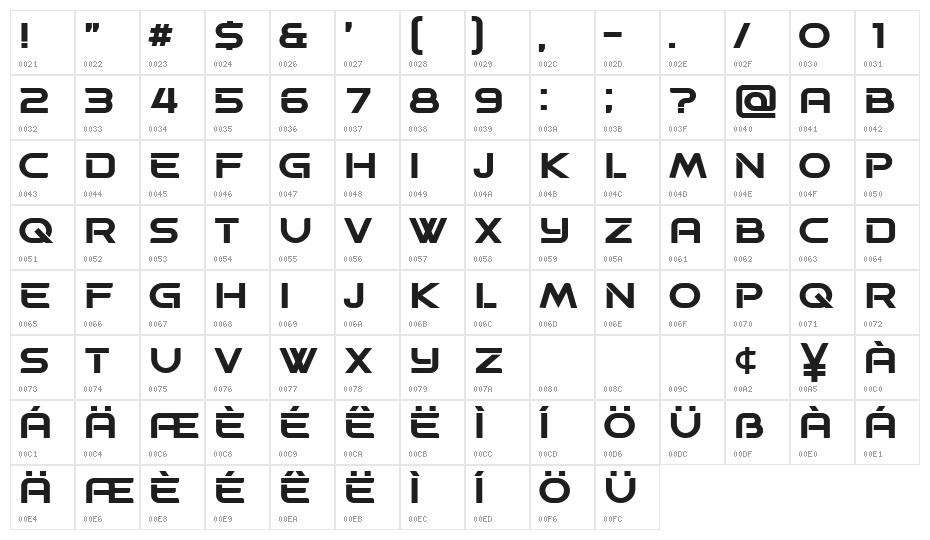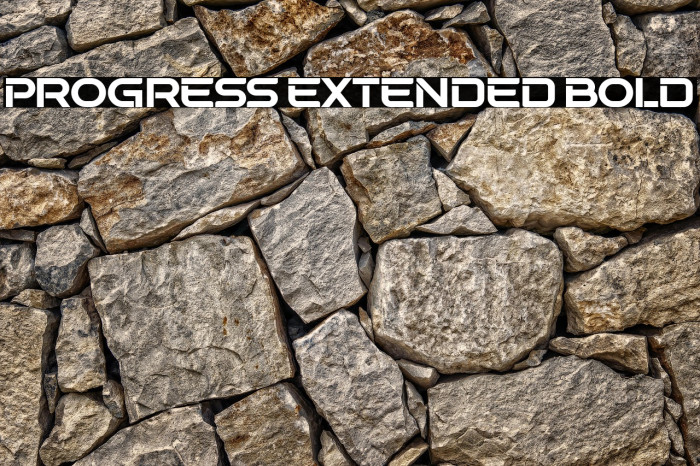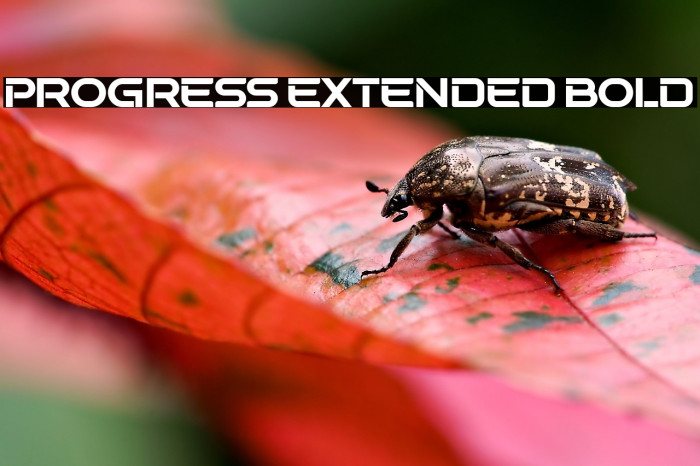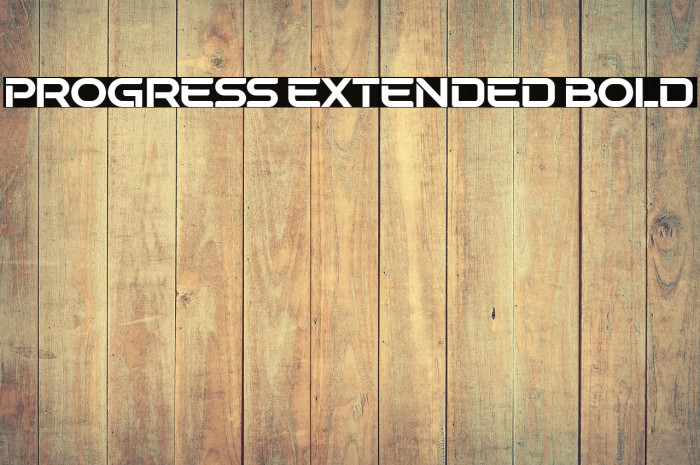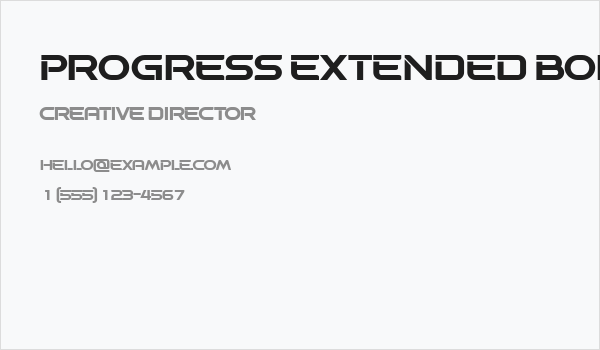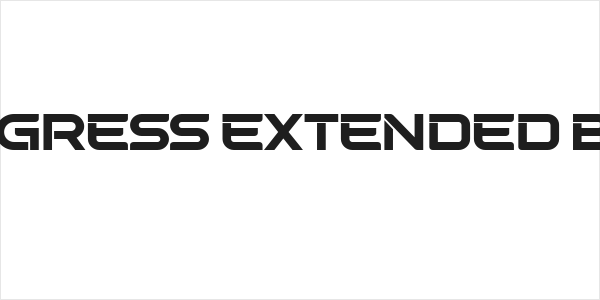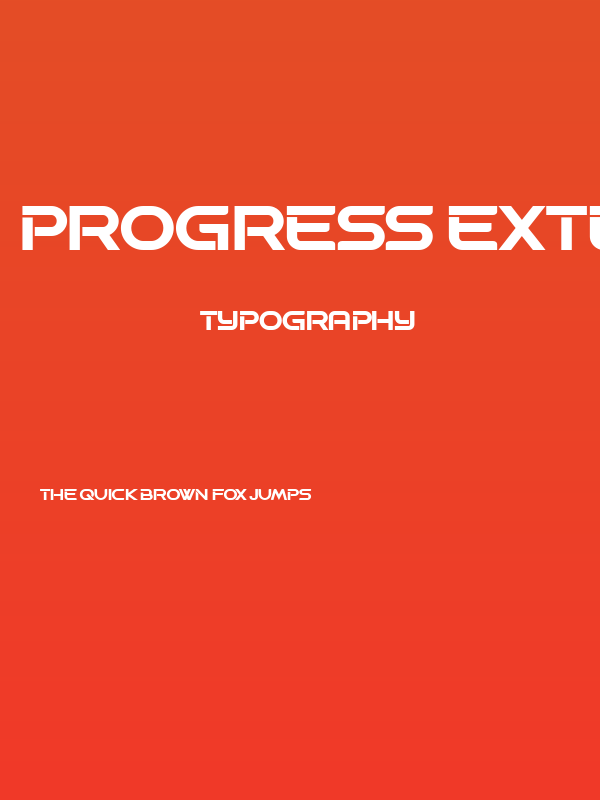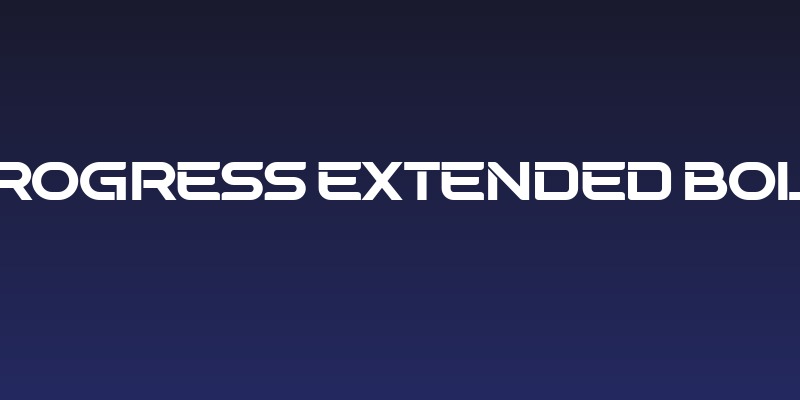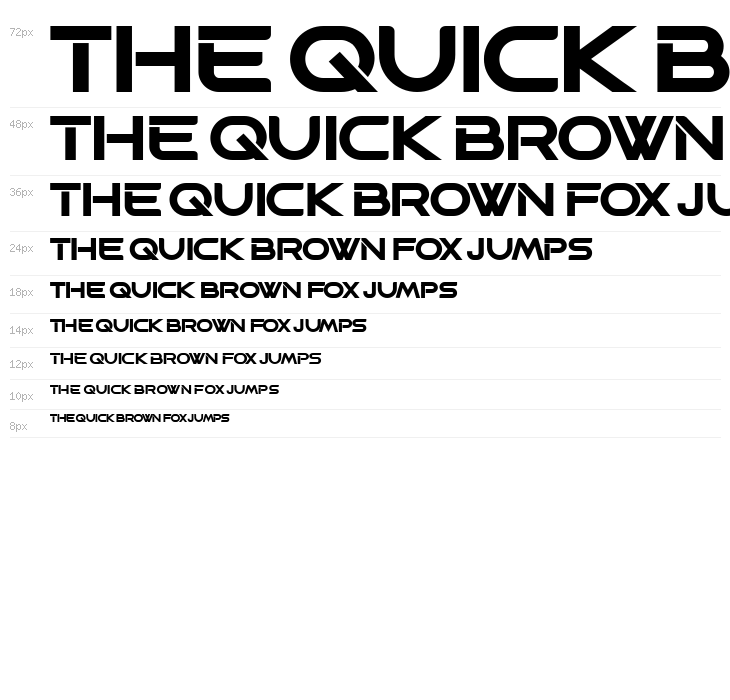
Progress Extended Bold Font
Progress Extended Bold Description
This font features a bold and extended style with a futuristic and geometric appearance. The characters are constructed with clean, straight lines and sharp angles, giving it a modern and sleek look. The uppercase letters are uniform in height, while the numbers and special characters maintain the same boldness and width, ensuring consistency across all glyphs. The design is highly legible, making it suitable for attention-grabbing headlines and titles. The overall aesthetic is contemporary and dynamic, ideal for projects that require a strong visual impact.